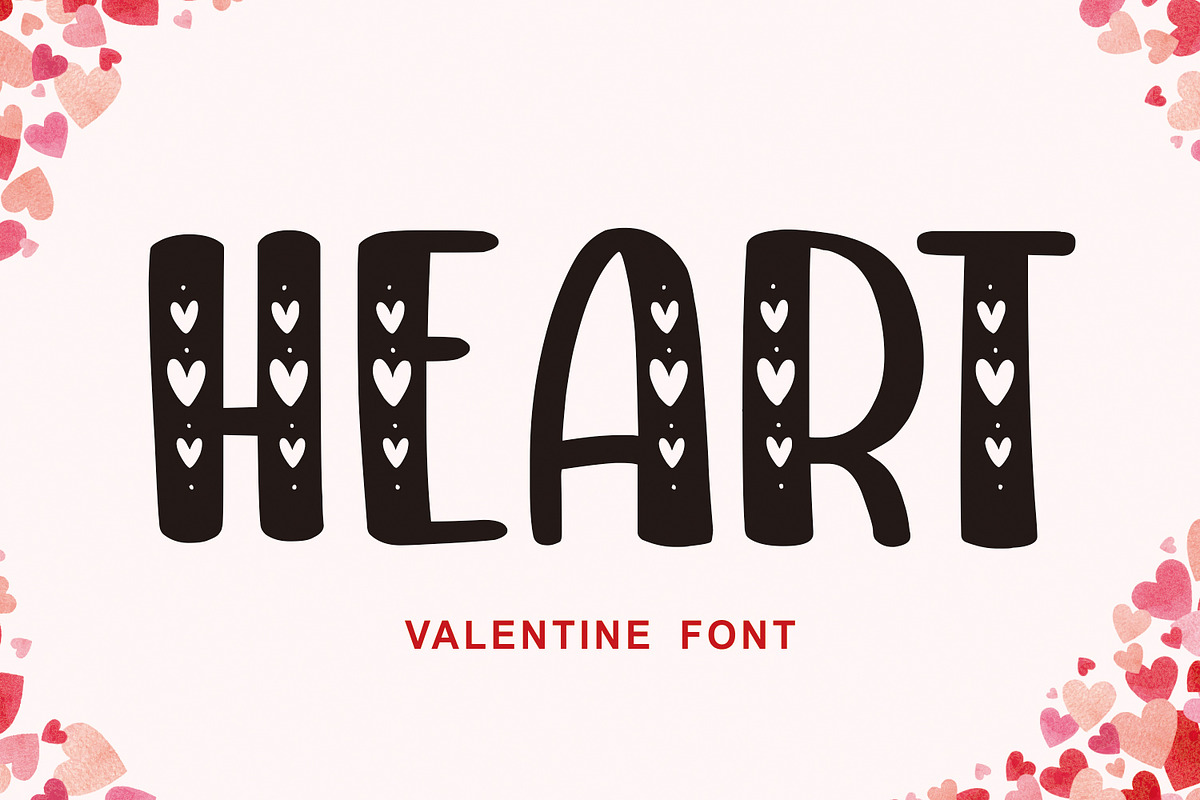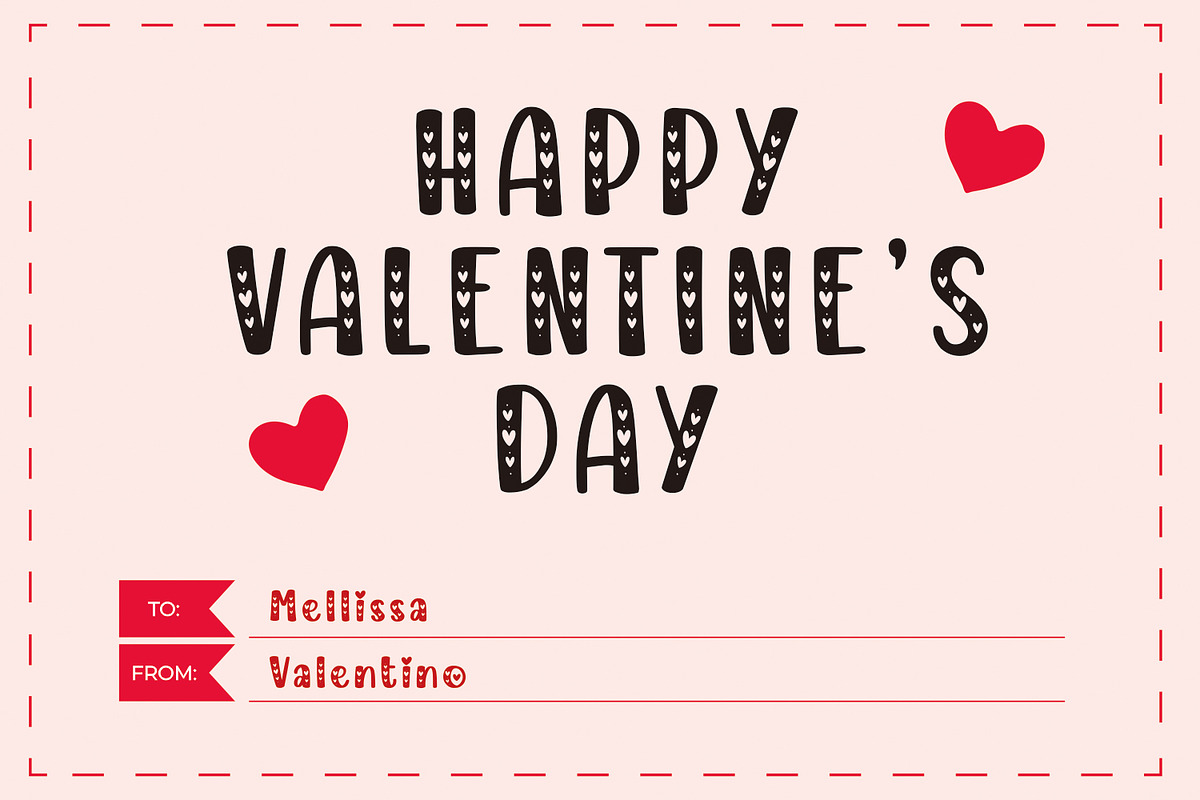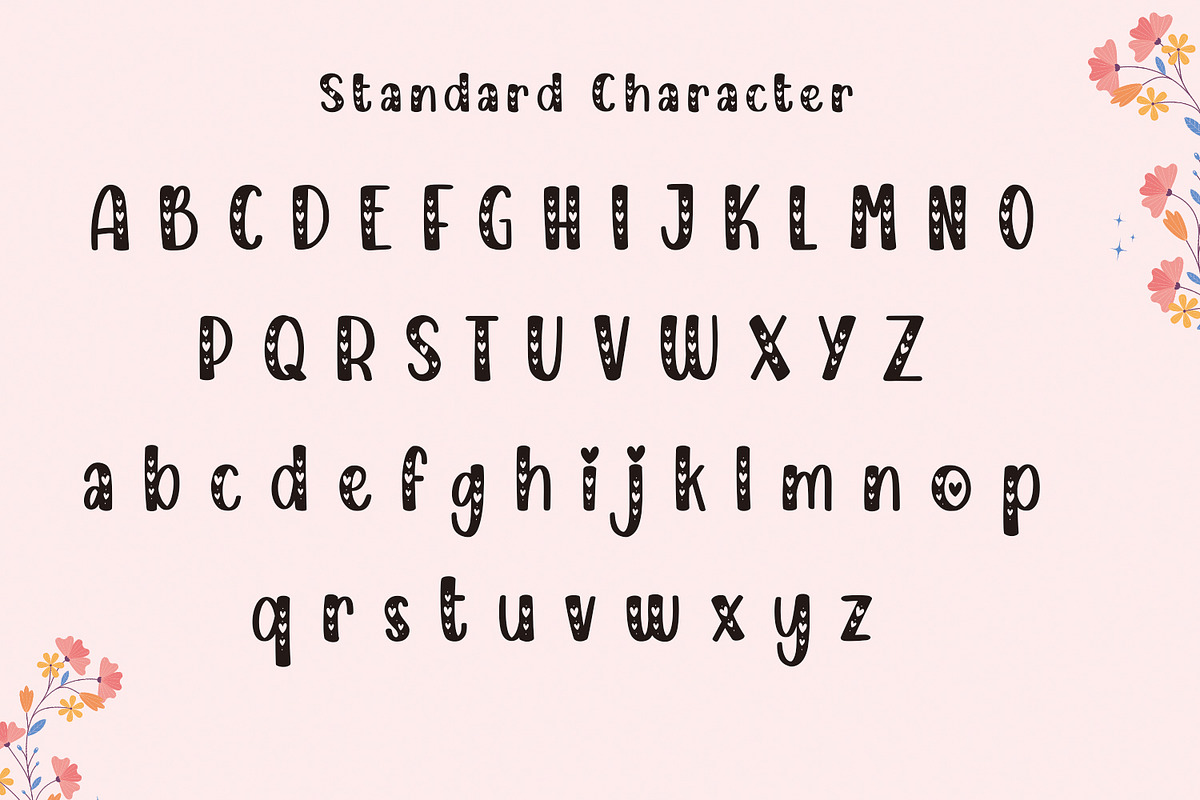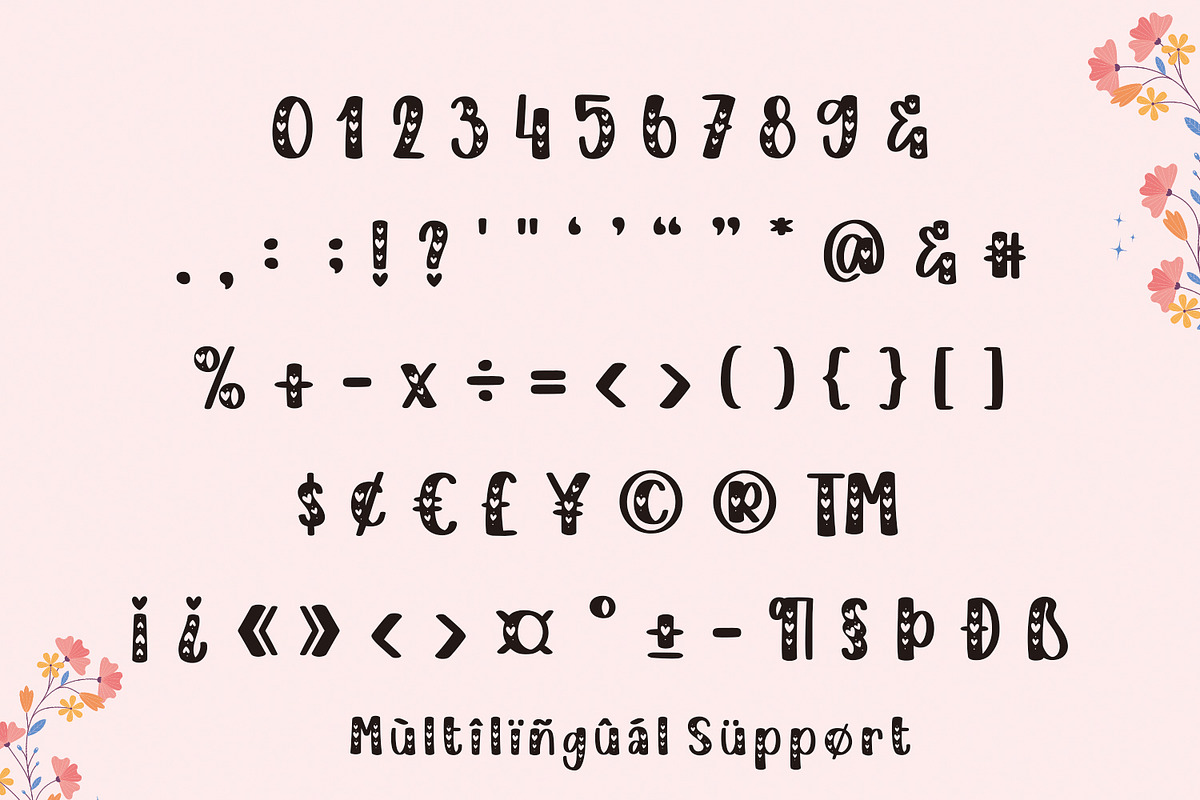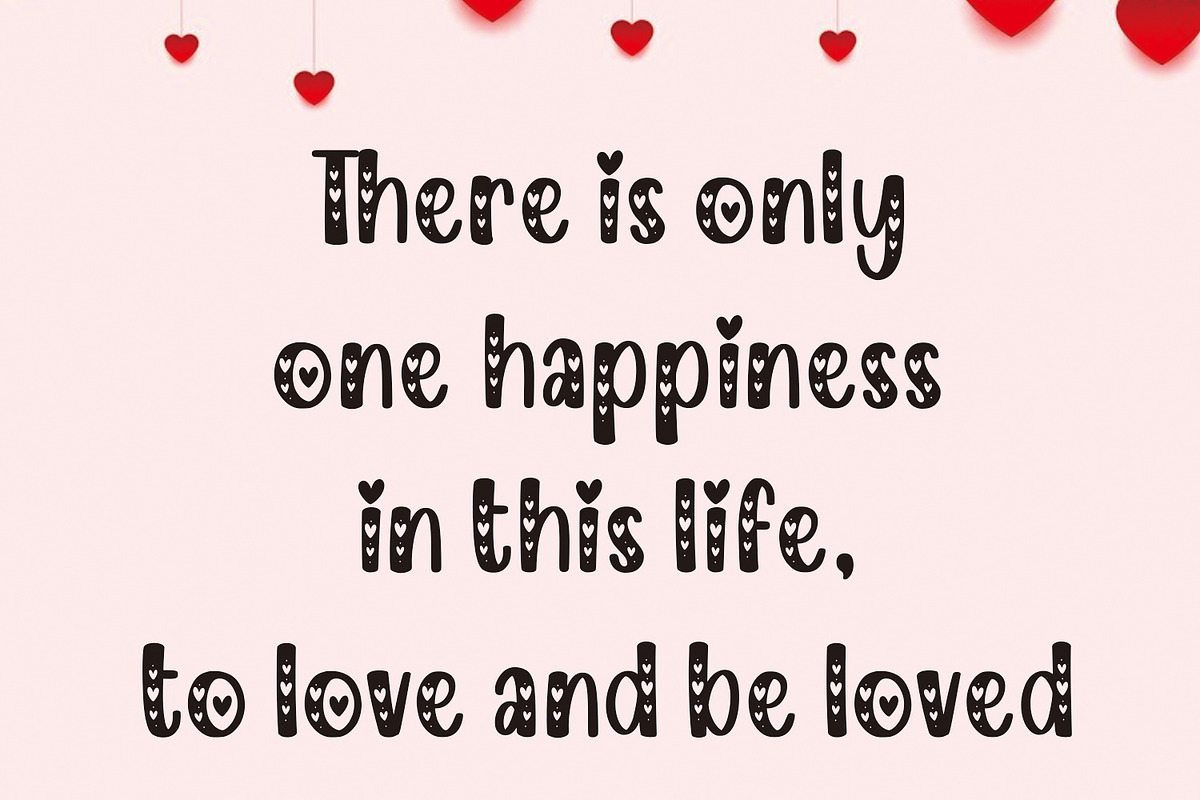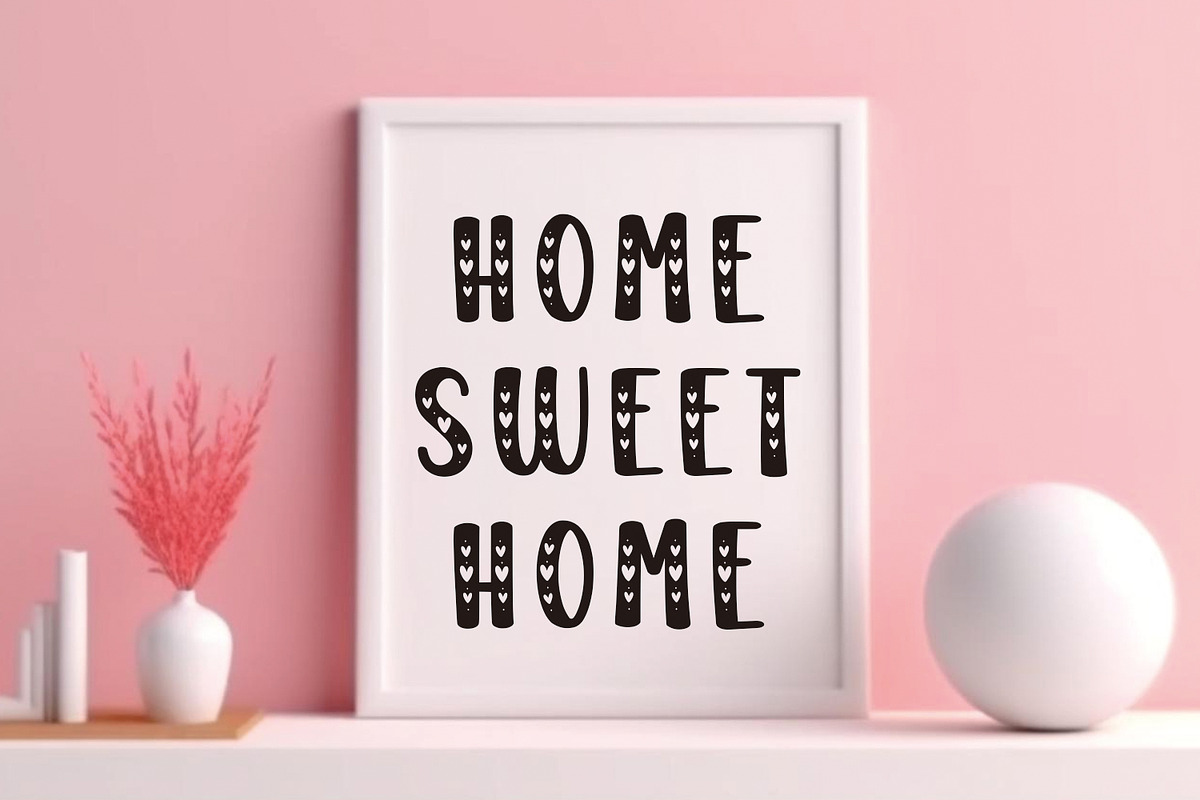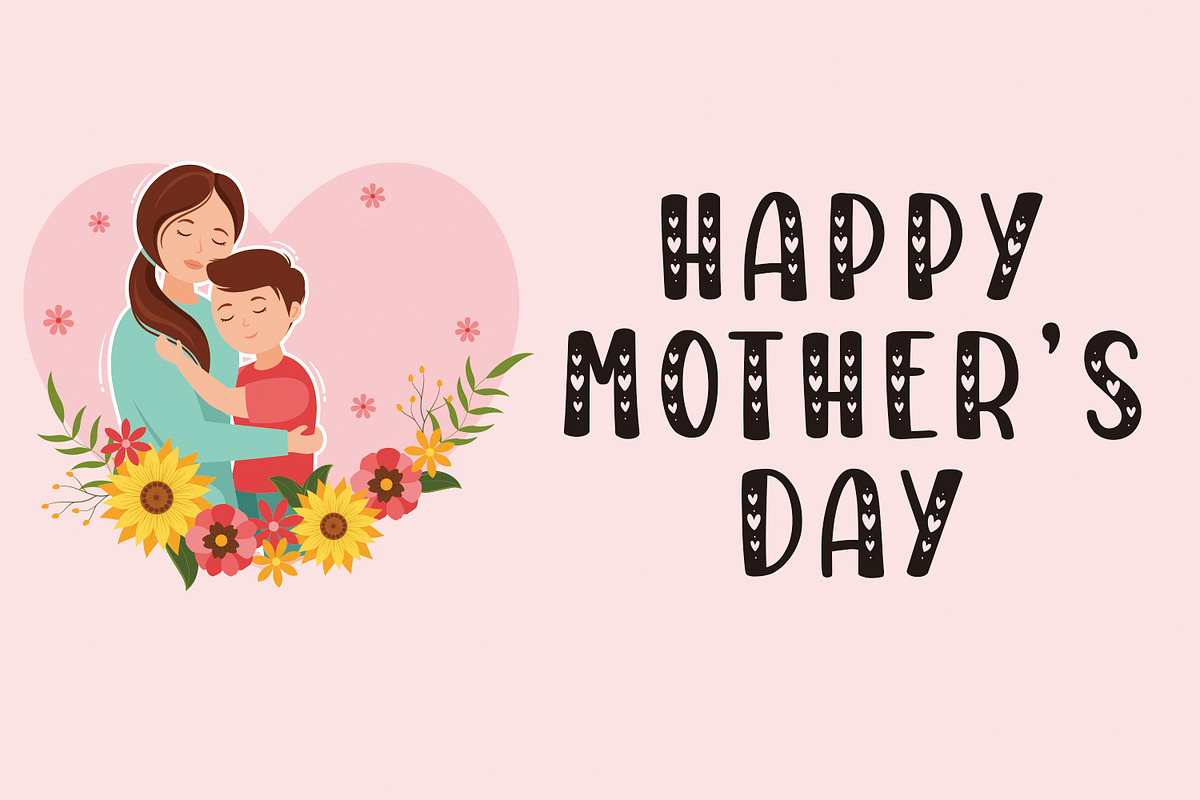
HEART
Introducing Heart Font – a delightful blend of display and cute styles designed to infuse love and warmth into your creative endeavors. This charming font is perfect for themes of affection, Valentine’s Day, Mother’s Day, crafting, greeting cards, decor, craft lettering, and embroidery.
With its whimsical curves and endearing characters, Heart Font adds a touch of sweetness to your projects, making them truly heartwarming. Whether you’re crafting heartfelt messages, designing beautiful cards, or enhancing your home decor, this font brings a unique charm that captures the essence of love and tenderness.
- Fonts include multilingual support